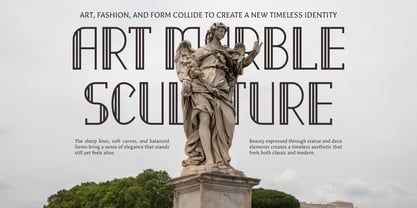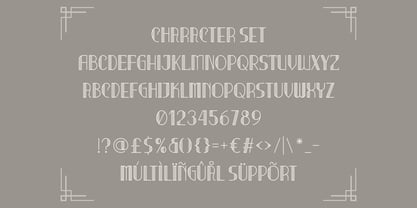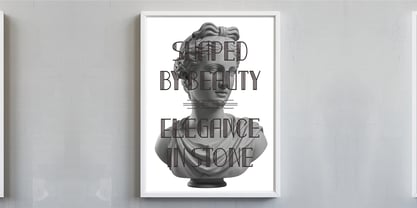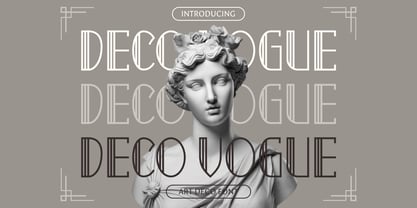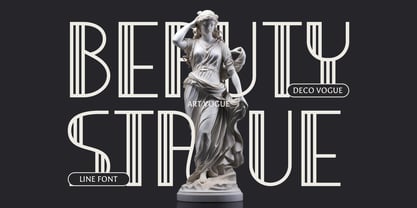
Deco Vogue
by Shanaf
The Deco Vogue Font Family was designed by Yesie Erma Yunita and published by Shanaf. Deco Vogue contains 1 styles.
Deco Vogue Art Deco Line Font brings a tall, sleek, and structured letterform that reflects classic deco geometry. Each character is built with thin vertical lines, smooth curves, and defined terminals that form a balanced and stylish silhouette. The font uses elongated proportions and narrow spacing to create a luxurious rhythm that feels sophisticated and modern. Its line-based construction gives every letter a refined presence while keeping the overall design light, airy, and artistic. The style blends elegance, symmetry, and ornamental finesse, making it ideal for timeless visual identities. Deco Vogue Art Deco Line Font supports creative projects that need a sharp and graceful typographic voice with high aesthetic value. This font offers a strong visual identity for logo design, branding work, editorial layouts, poster titles, film covers, packaging, boutique promotions, and event invitations. Its deco-inspired form enhances headlines that need glamour, prestige, or a high-fashion tone. Designers gain control over expressive layouts through its consistent line flow and structured shapes. Every curve adds charm while every straight line adds clarity. It fits luxury products, wedding stationery, magazine features, boutique catalogs, art exhibitions, and elegant signage. With its clean structure and unique line detailing, Deco Vogue Art Deco Line Font becomes a versatile tool for building refined, memorable, and artistic designs.
Designers: Yesie Erma Yunita
Publisher: Shanaf
Foundry: Shanaf